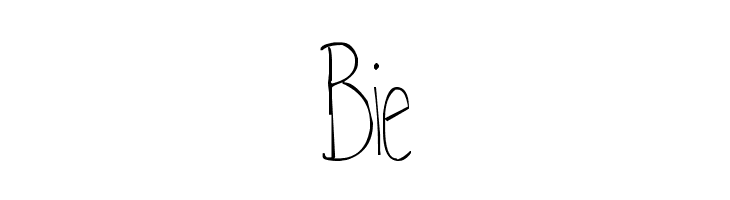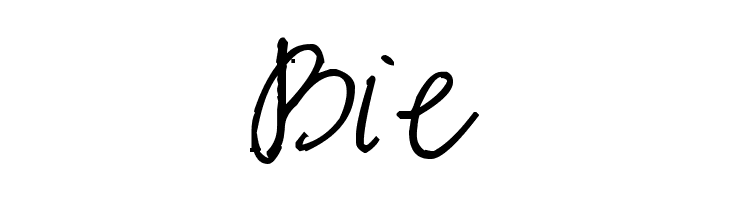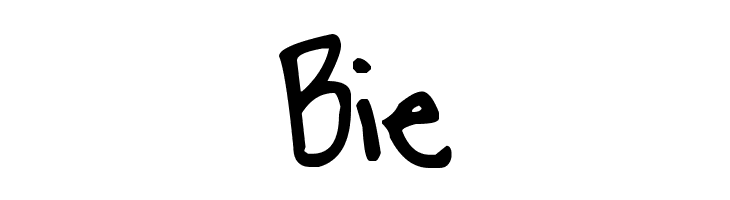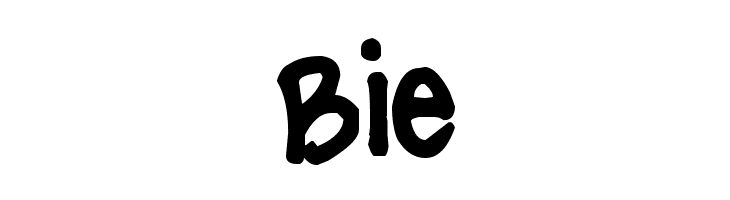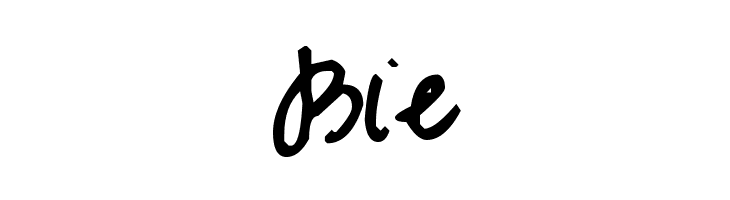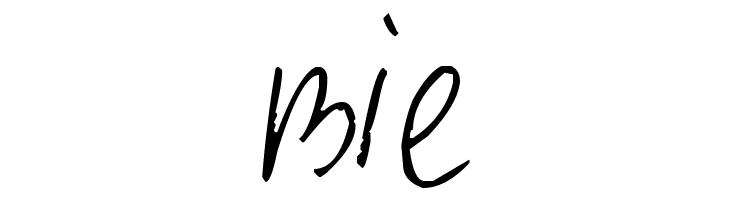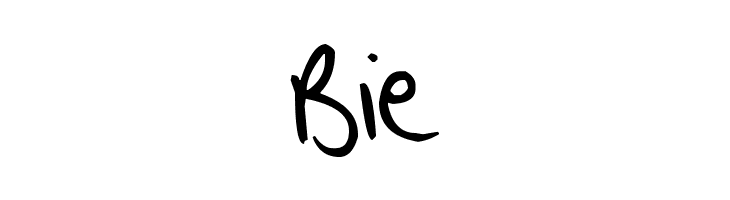
• Pea Luv-2-Scrapbook
A playful, handwritten font with bold, rounded strokes and a casual feel.
• Pea Lyndal
A playful, handwritten font with bold, irregular strokes.
• Pea Mandy
A playful, casual handwritten font with an organic and dynamic style.
• Pea Marcie
A bold, playful handwritten font with a casual and friendly style.
• Pea Marcie Script
A playful, casual handwritten font with fluid, connected letterforms.
• Pea Marcie's Skinny Print
A casual, handwritten font with a playful and informal style.
• Pea Marcie's Skinny Script
A playful, casual handwritten script with thin, flowing strokes.
• Pea Martha
A playful, handwritten font with tall, narrow characters and whimsical decorative elements.
• Pea Melanie
A playful, casual handwritten font with irregular strokes and a friendly appearance.
• Pea Meli
A playful, handwritten font with a casual and friendly appearance.